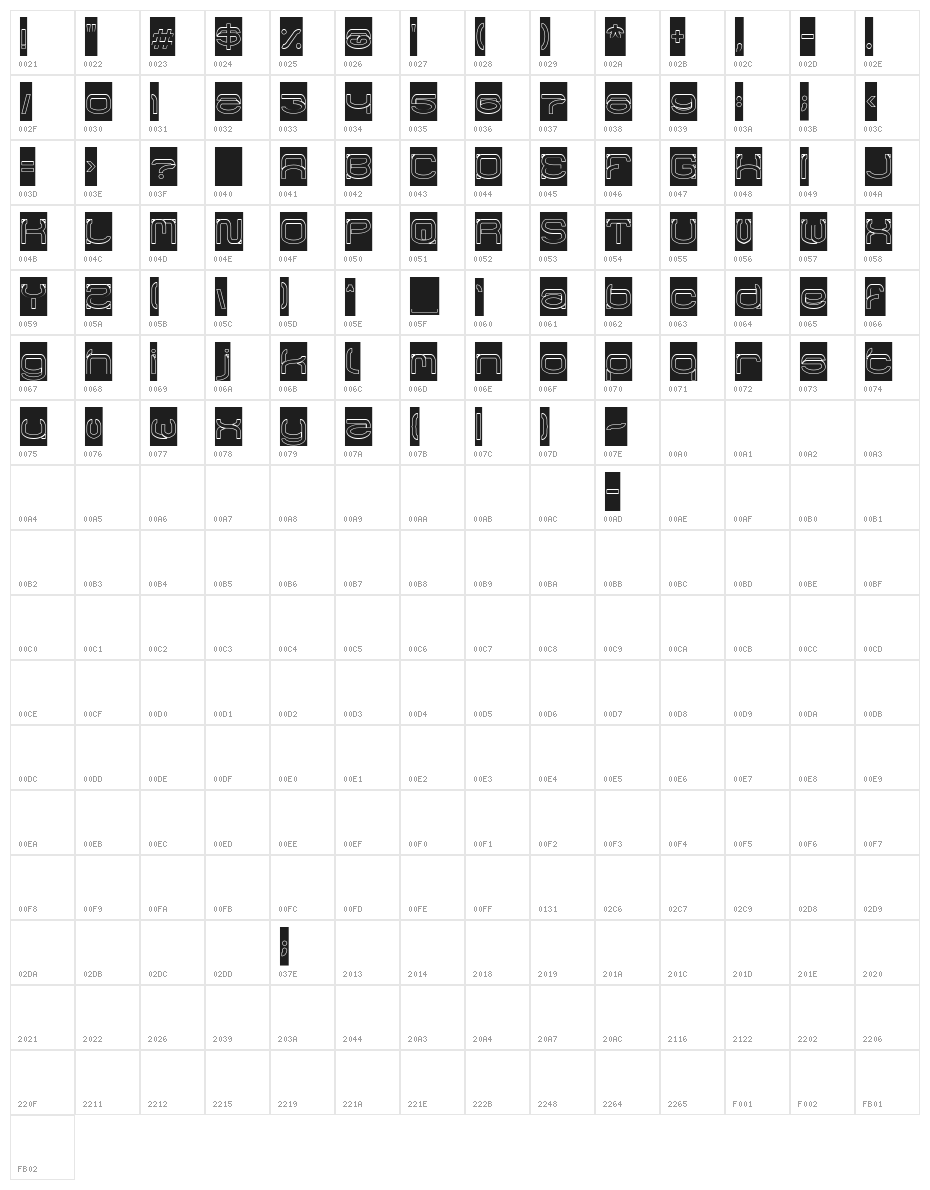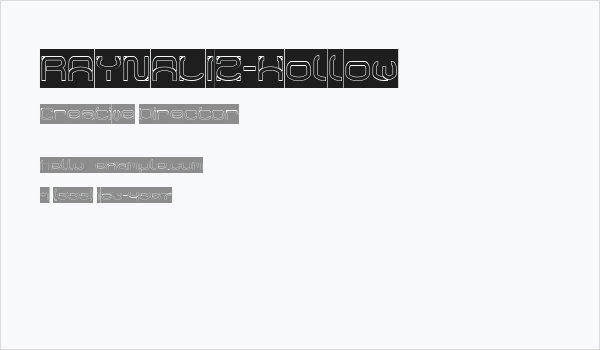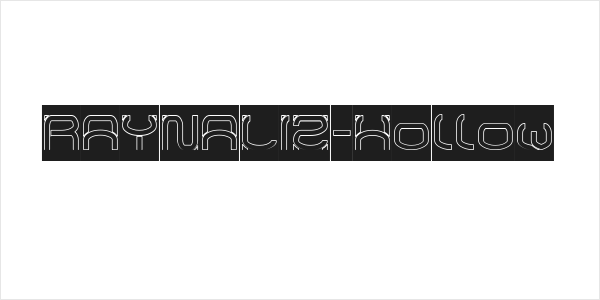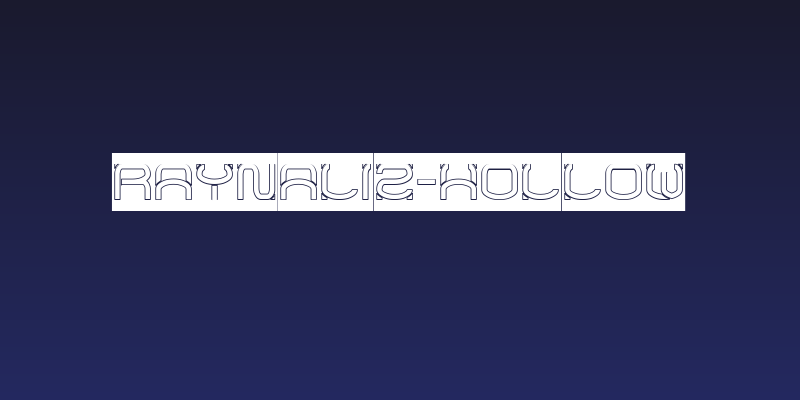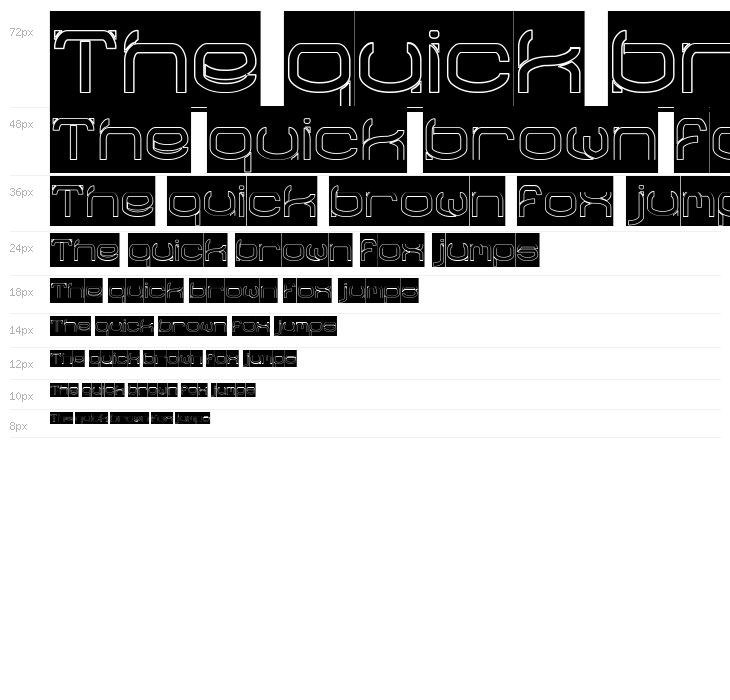
RAYNALIZ-Hollow Font
RAYNALIZ-Hollow Description
This font features a unique hollow design with a futuristic and geometric aesthetic. Each character is outlined with a consistent stroke width, creating a striking and modern appearance. The uppercase and lowercase letters maintain a uniform style, while the numbers and special characters complement the overall design. Its hollow nature gives it a lightweight feel, making it ideal for creative and bold projects where a modern and eye-catching look is desired.
| Proposed Projects | Ideal for sci-fi themed designs, tech branding, modern posters, and digital artwork. |